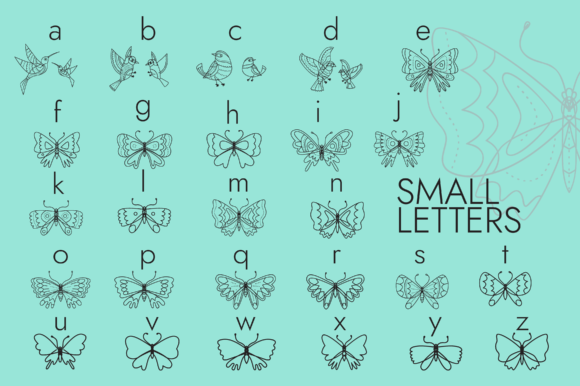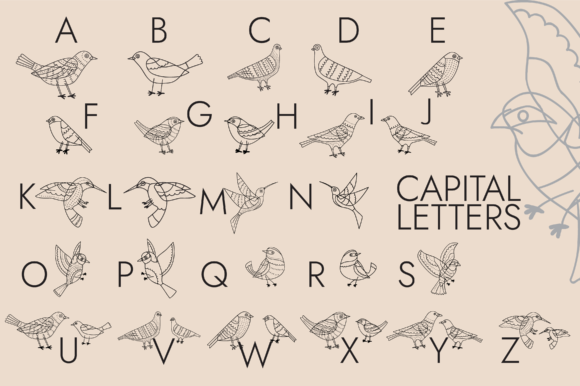
Get Ready to Take Your Designs to New Heights with Birds and Butterflies Font
Have you ever sat at your desk, staring at a blank page, trying to come up with the perfect idea to inspire your next creative project? You’ve got a vision in your mind, but it just needs that extra something to bring it to life. That’s where the magic happens, and for many designers, the right font can be the key to unlocking their full potential.
That’s where the Birds and Butterflies Font comes in – a delicate and useful dingbats font that adds a touch of whimsy to any design. Whether you’re working on a children’s book, a garden-themed website, or a nature-inspired logo, this font is sure to bring a smile to your face and a sparkle to your design. With its playful characters and intricate details, it’s the perfect addition to any creative project, and we’re excited to share its secrets with you.
Birds and Butterflies Font Key Features
- Size and Resolution: The font comes in a range of sizes, from 8-point to 72-point, and supports resolutions up to 1200 dpi, making it suitable for various printing and digital applications.
- Unique Characteristics: This font features a whimsical and playful design, with intricate illustrations of birds and butterflies that add a touch of elegance and sophistication to any text.
- Unicode Support: The Birds and Butterflies Font supports a wide range of Unicode characters, including Latin, Greek, and Cyrillic scripts, making it a versatile choice for multilingual applications.
- Font Weight and Style: The font includes various weights and styles, including Light, Regular, Bold, and Italic, allowing users to customize the appearance of their text to suit their needs.
Designer Review: Birds and Butterflies Font
I recently had the chance to work with the Birds and Butterflies font, and I must say it’s a lovely addition to any design project. ✨ The hand-drawn feel and whimsical nature of the font make it perfect for projects that need a touch of elegance and sophistication.
Here are some of the things that I think work well with this font:
- ✨ Unique letterforms: The Birds and Butterflies font has some truly unique letterforms that add a touch of personality to any text.
- ✨ Versatility: This font can be used for a wide range of projects, from wedding invitations to children’s books.
- ✨ Easy to read: Despite its whimsical nature, the font is surprisingly easy to read, making it perfect for longer blocks of text.
That being said, there are a few limitations to keep in mind:
- ⚠️ Limited font sizes: The font may not be suitable for very large or very small font sizes, as it can become difficult to read.
- ⚠️ Limited font weights: The font is only available in a few different weights, which may limit its versatility.
Overall, I think the Birds and Butterflies font is a great choice for designers who want to add a touch of whimsy and elegance to their projects. With its unique letterforms and versatility, it’s sure to be a hit with clients and audiences alike.
To get the most out of the Birds and Butterflies Font, consider the following tips:
- Pair the font with a natural color scheme to emphasize its whimsical feel.
- Use the font for headings or titles to add a touch of elegance.
The Birds and Butterflies Font is ideal for:
- Children’s books and educational materials.
- Outdoor and nature-themed designs.